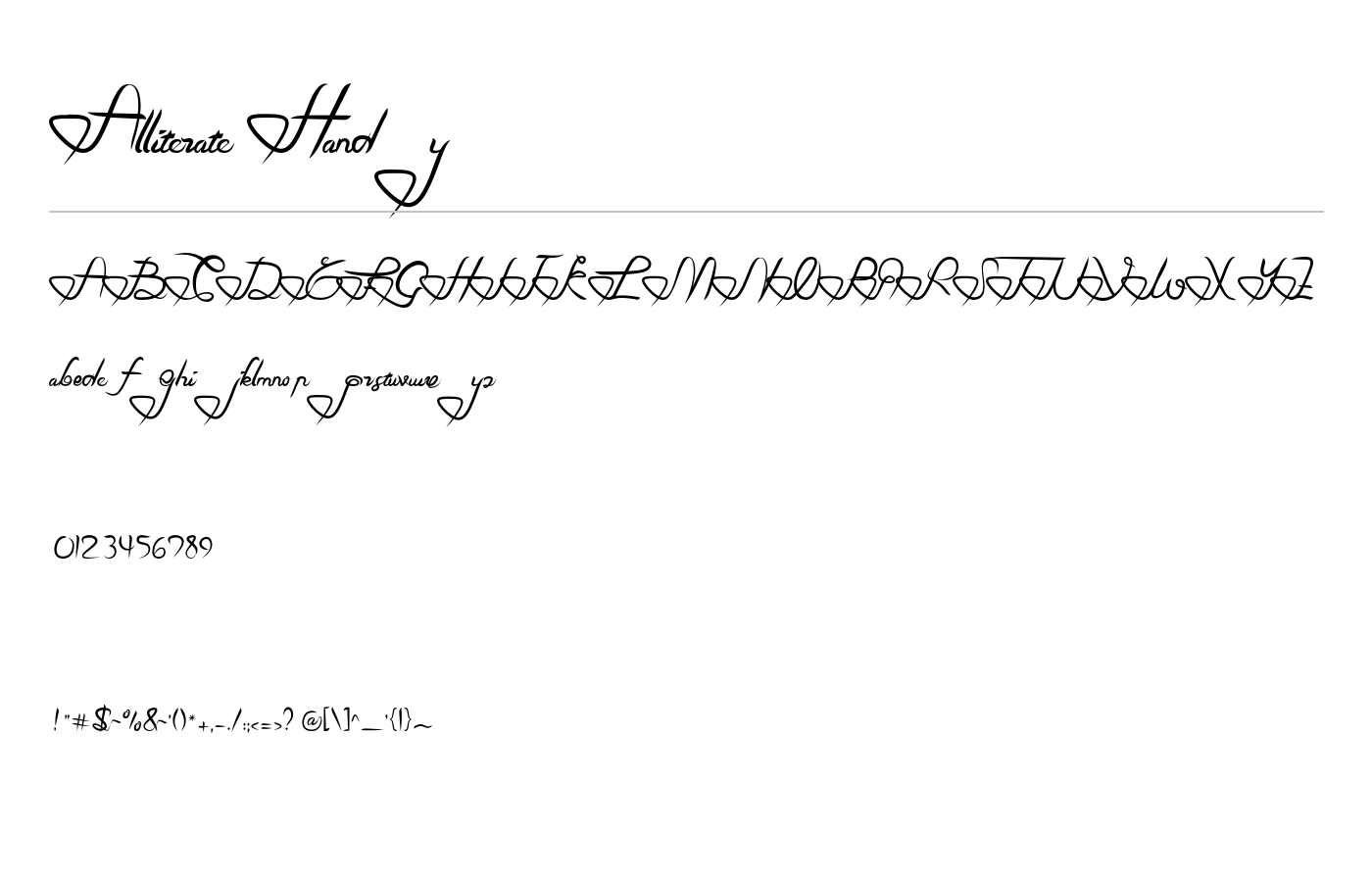
Alliterate Handy is an elegant script font with slender, flowing characters that mimic sophisticated handwriting. Its unique, decorative letterforms and fine strokes convey a personal and artistic feel, making it perfect for invitations, logos, and creative projects that seek a touch of refined charm and individuality.
Alliterate Handy Font
About Alliterate Handy Font